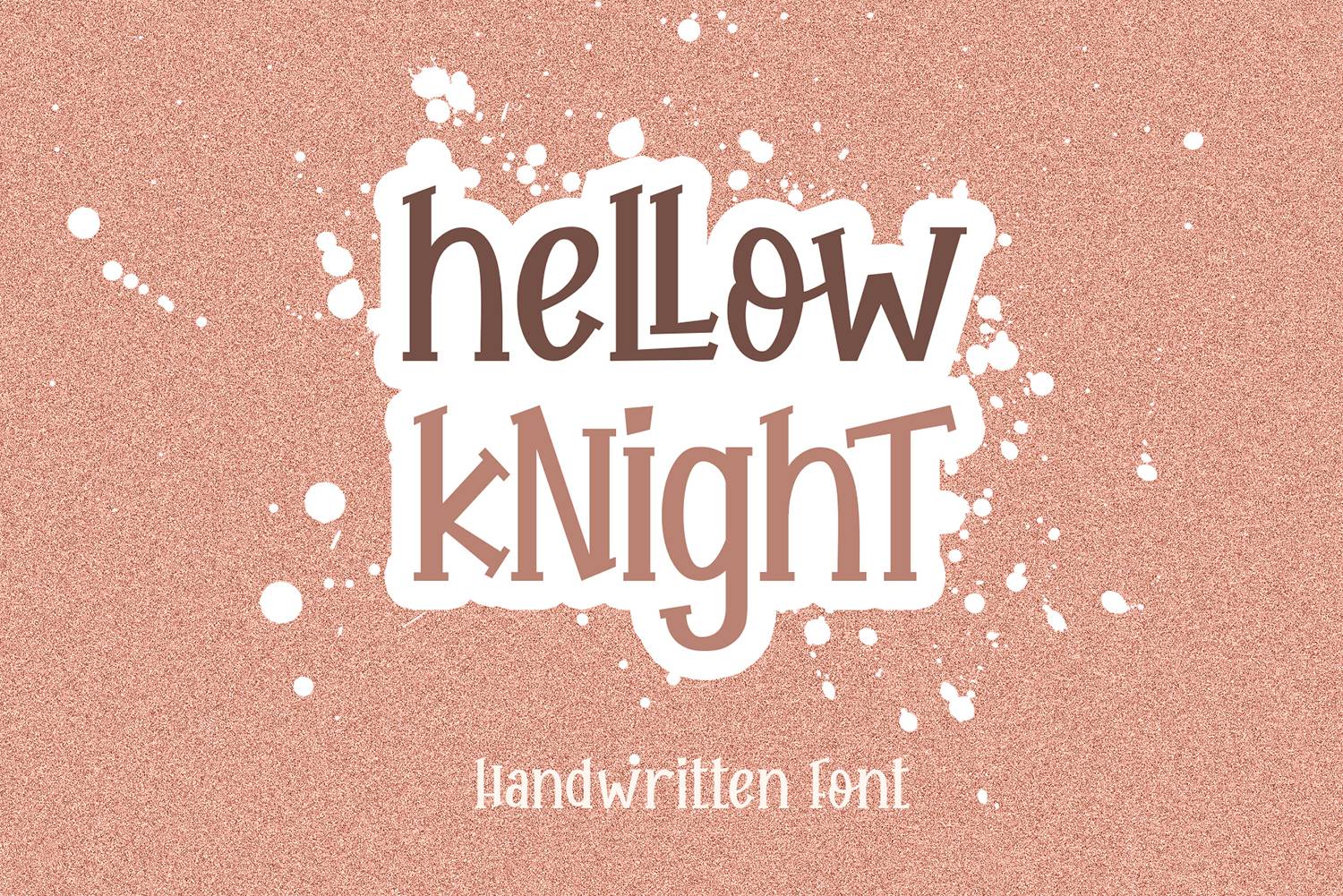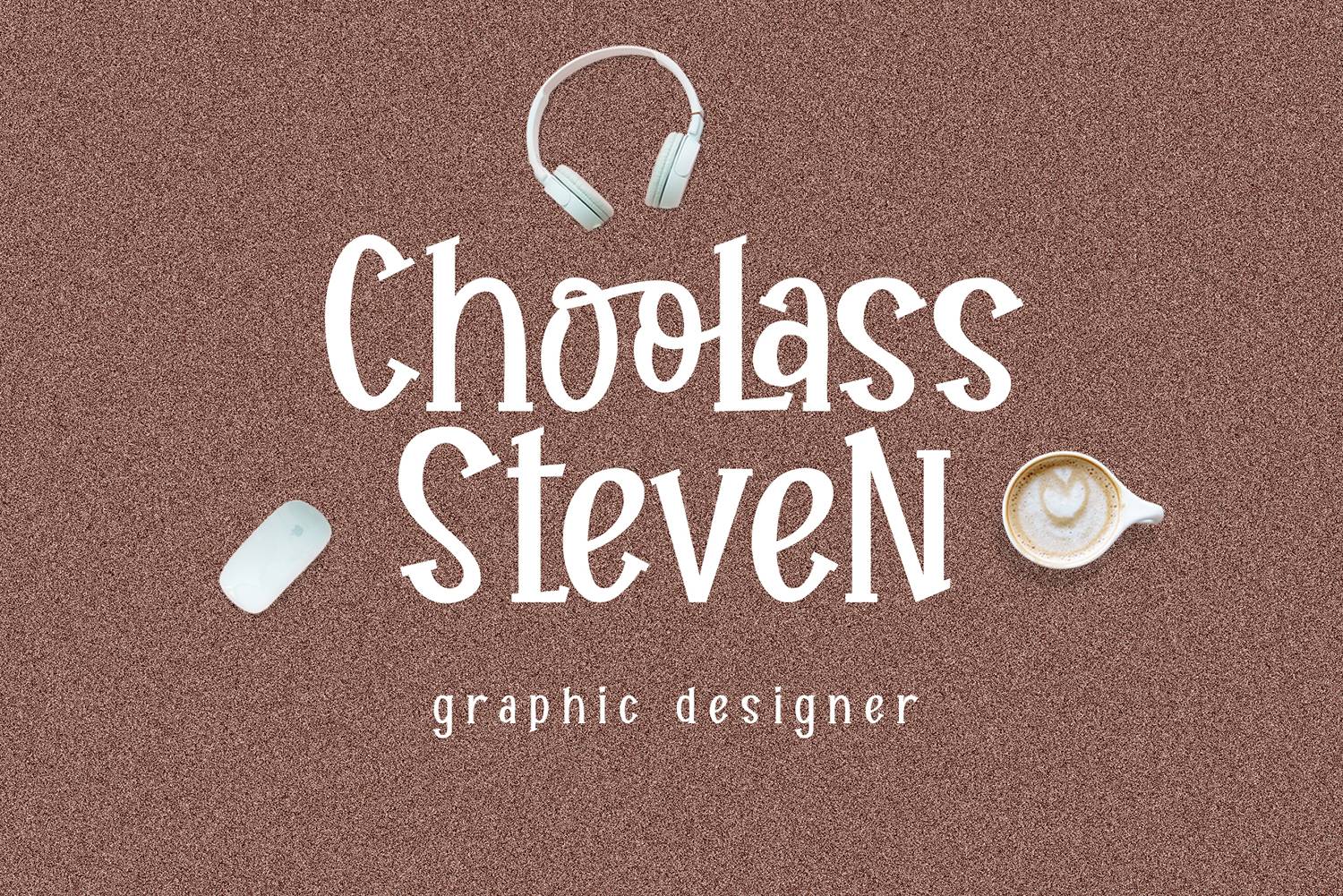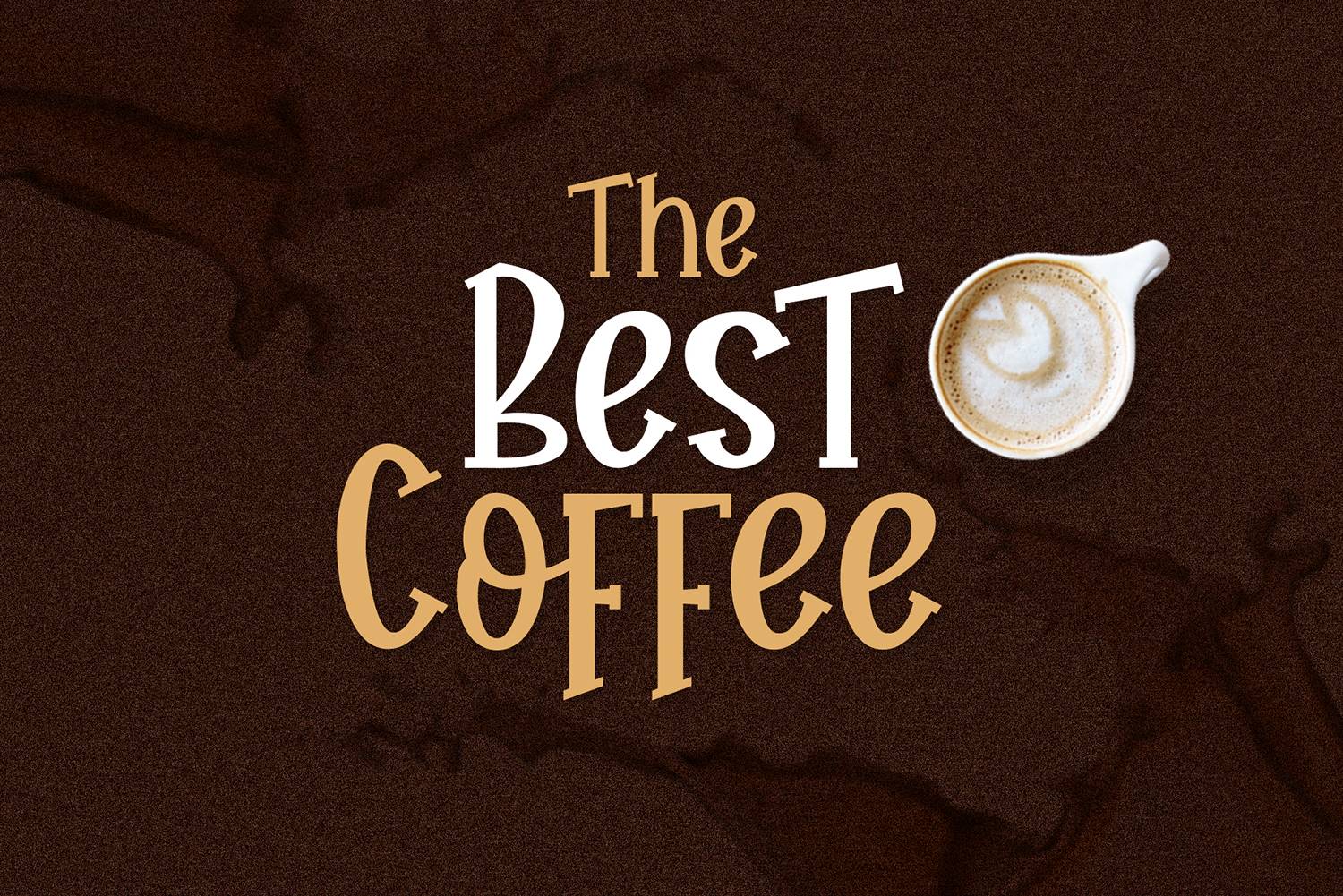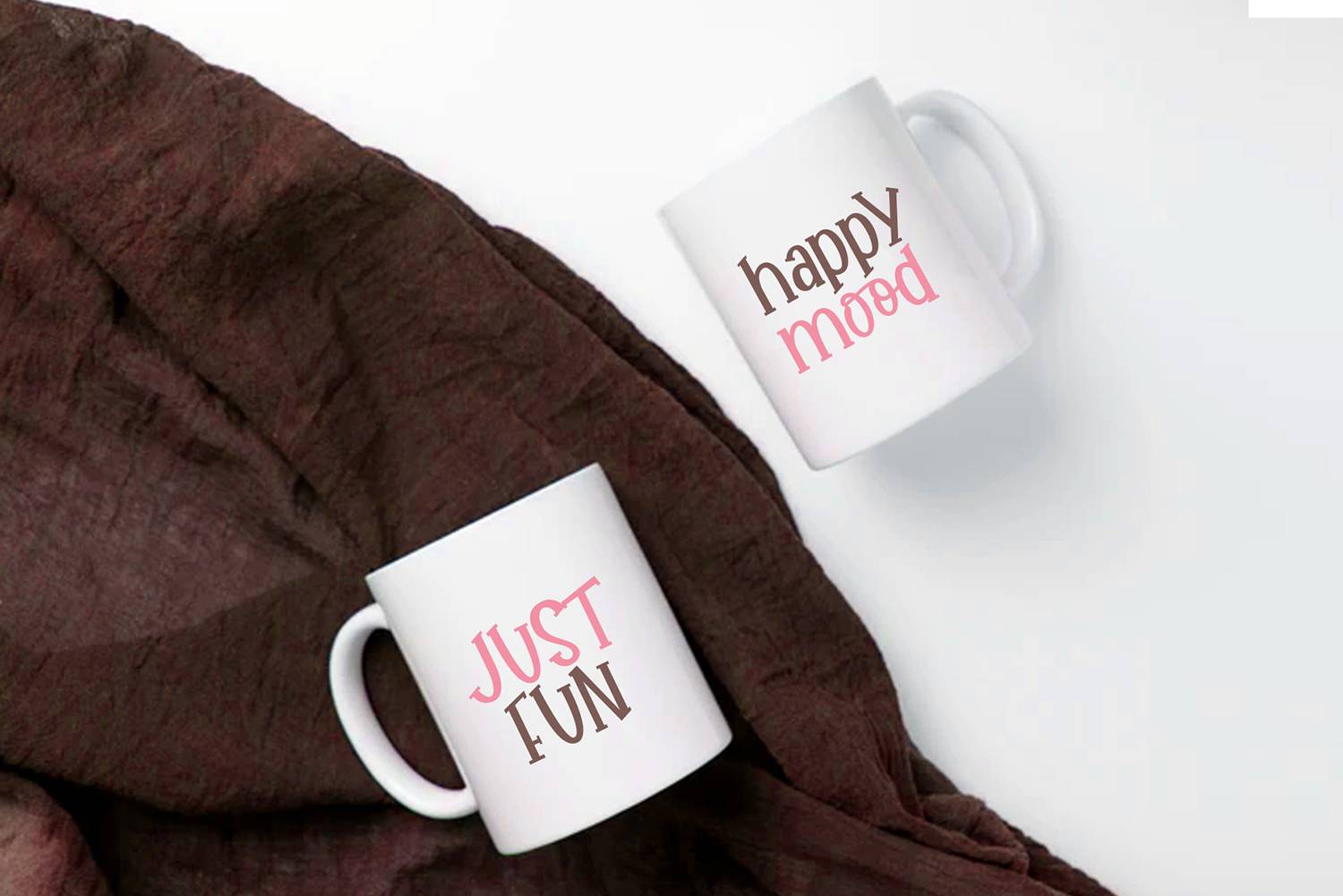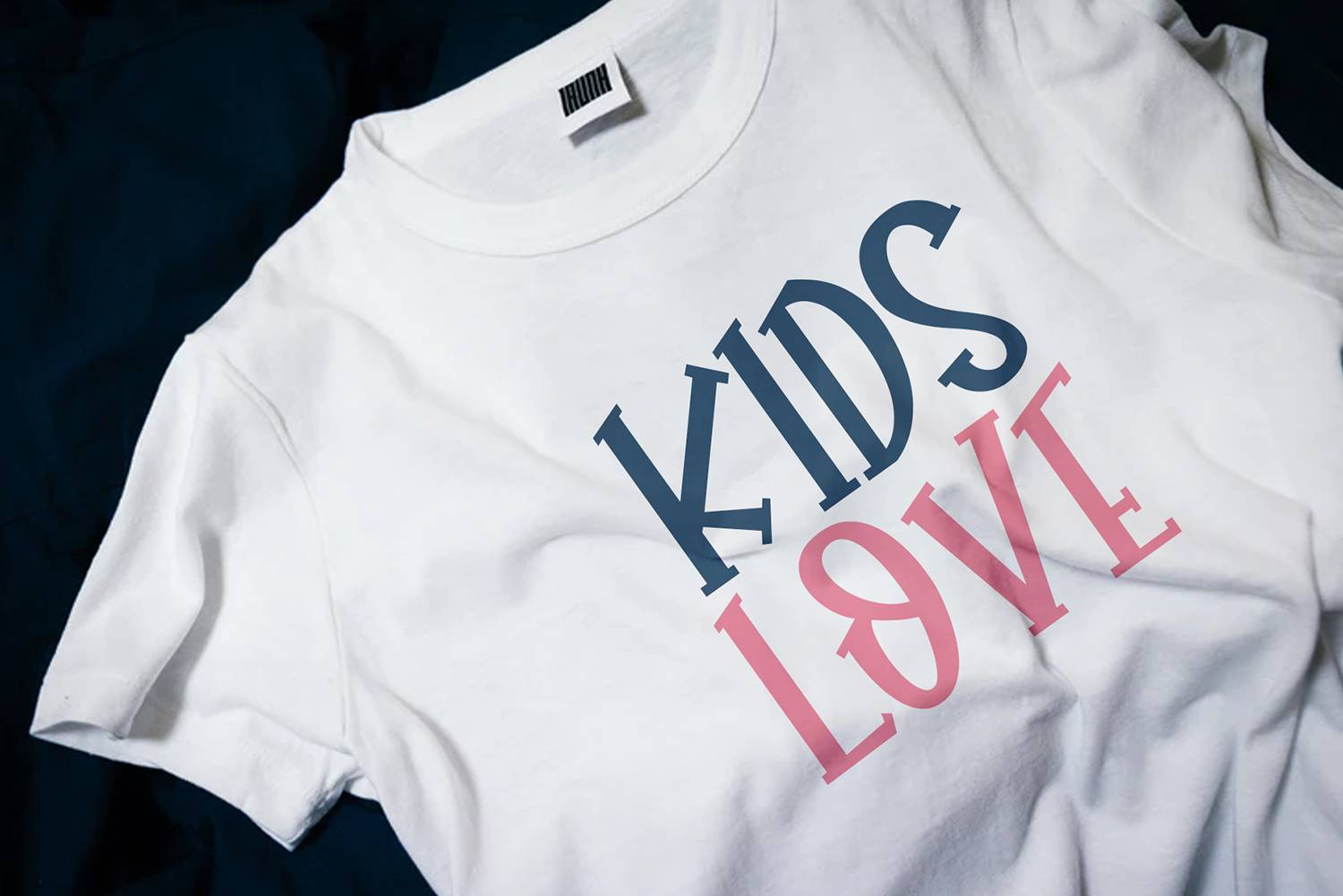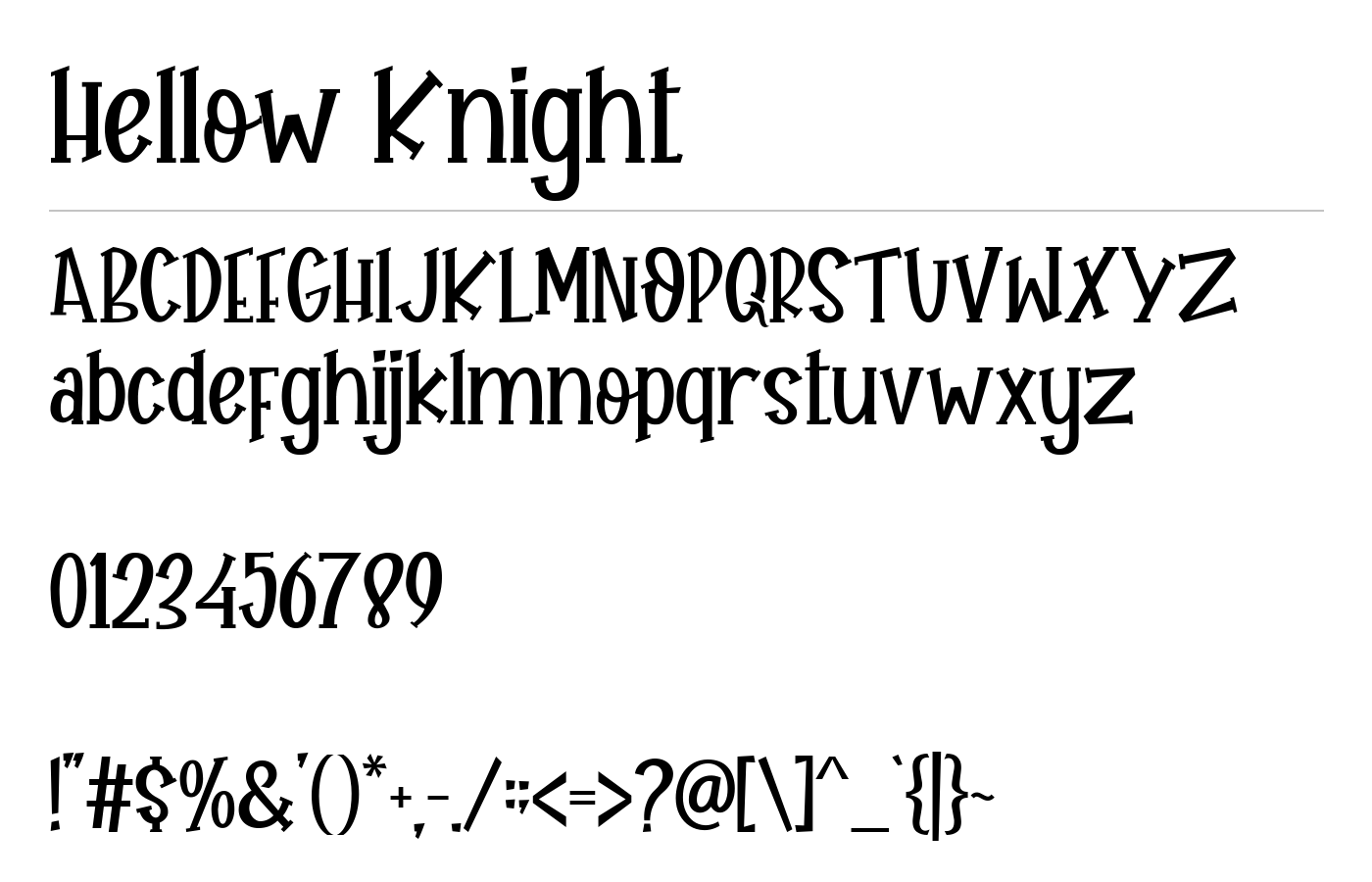
Hellow Knight is a quirky serif font with a playful and slightly uneven character, featuring sharp serifs and a mix of straight and curved strokes that give it a hand-crafted, whimsical feel. Its medium contrast and distinctive letterforms make it ideal for creative and informal branding, headlines, or packaging where a unique, storybook-like personality is desired. This font works especially well in contexts seeking a fun yet slightly medieval or vintage vibe.
Hellow Knight Font
About Hellow Knight Font